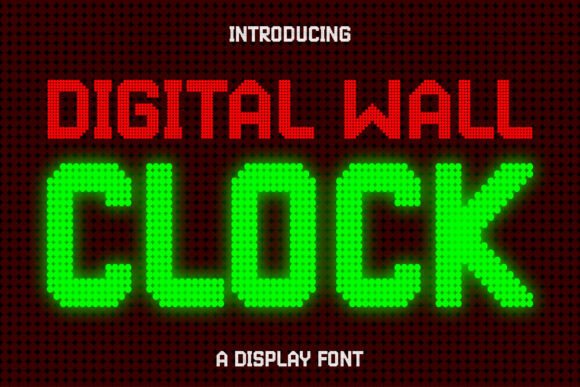
Digital Wall Clock: A Display Font That Anchors Campaigns
It was 3:47 p.m. on a Tuesday—two days before the launch of a four-part Instagram content series for a small online course on time management—and I was tweaking the thumbnail for the first reel. The headline needed to land in under half a second: bold, legible at thumbnail size, and quietly authoritative. I cycled through three fonts before landing on Digital Wall Clock. Instantly, the composition clicked—not because it was flashy, but because it felt *settled*. Like a clock that’s been on the wall long enough to earn its place.
A Display Font With Quiet Authority
Digital Wall Clock isn’t trying to be playful or futuristic. It’s a premium display font rooted in real-world rhythm: the crisp, evenly spaced digits of analog-adjacent digital clocks found in train stations, government lobbies, and quiet chapels. Its character comes from restraint—monospaced proportions, subtle terminal cuts, and just enough weight contrast to hold up on screen without shouting. It reads as calm, precise, and slightly ceremonial—not cold, not sterile, but grounded.
This makes it especially effective when your campaign hinges on clarity and trust: webinar banners, limited-time sale labels, course module headers, or branded quote graphics. It doesn’t distract; it declares. And because it’s designed as a display font—not body text—it thrives where attention is fleeting and space is tight.
Where It Shines (and Where It Steps Back)
In practice, Digital Wall Clock excels in short, high-impact roles:
What it doesn’t do—and shouldn’t be asked to—is carry paragraphs, explain features, or serve as primary UI text. It’s not optimized for small mobile body copy, dense email footers, or multi-line product descriptions. And while it adds gravity to a brand’s voice, it’s not a substitute for formal corporate typography in annual reports or legal disclaimers. Think of it as your campaign’s “title card”—not its script.
Readability in Real Conditions
We tested Digital Wall Clock across common friction points:
One note: avoid using it below 20pt in most social contexts. At smaller sizes, the uniform stroke width starts to blur visual distinction between characters—especially on lower-DPI screens.
Smart Pairing & Practical Setup
Digital Wall Clock works best as the “voice” of your message—not the whole conversation. We consistently paired it with a clean, neutral sans serif (like Inter or Manrope) for supporting text. That combo delivers hierarchy without tension: the display font sets tone and timing; the sans serif handles explanation and flow.
For contrast-driven projects—a workshop promo with handwritten accents—we used it alongside a restrained script (e.g., Playfair Display for headings + Digital Wall Clock for date/time callouts). Never forced it next to heavy serifs or decorative scripts—it’s too intentional for that kind of visual noise.
Before dropping it into client work or templates, we always checked:
No ligatures or stylistic alternates—but that’s part of its strength. It doesn’t ask for attention beyond its purpose.
When to Reach for Digital Wall Clock
You’ll reach for Digital Wall Clock when your campaign needs to signal precision, pause, or presence—not speed or whimsy. It fits naturally in:
It won’t solve vague messaging or weak creative direction—but when your idea is clear and your timing matters, Digital Wall Clock gives it the right kind of weight. Not loud. Not trendy. Just unmistakably there.